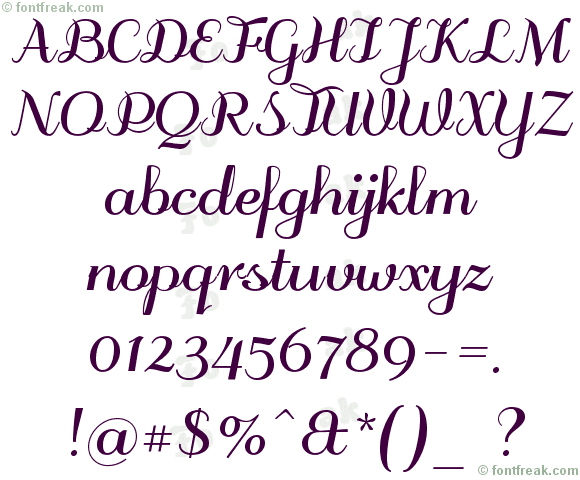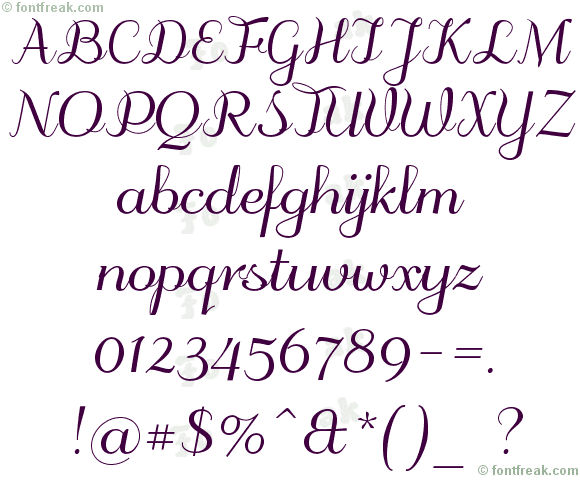
odstemplik
odstemplik Bold
The odstemplik font, created by Grzegorz L., is a decorative typeface that captures attention with its unique visual appeal. This bold, ornamental font features a distinctive stroke weight that combines both elegance and playfulness, making it ideal for various design applications. The characters exhibit a delightful blend of curves and angles, contributing to a dynamic aesthetic that draws the eye. With its moderate contrast and thoughtful spacing, odstemplik ensures readability while maintaining its artistic flair.
This font is particularly well-suited for projects that require a touch of creativity and individuality. It shines in wedding invitations, where its ornate style can convey romance and sophistication. Similarly, it makes an excellent choice for movie posters, providing a striking visual impact that can captivate audiences. Restaurant menus can also benefit from the unique charm of odstemplik, enhancing the dining experience with its decorative elements. Additionally, greeting cards and event flyers will stand out with the engaging character of this typeface.
Target audiences for the odstemplik font include graphic designers looking to elevate their projects, small business owners aiming to create memorable branding, and content creators who want to infuse personality into their work. The font's freeware license under the SIL Open License version 1 allows for flexible use, making it accessible to a wide range of users.
What truly sets the odstemplik font apart is its ability to blend artistic expression with practicality. Its striking design can transform ordinary text into eye-catching visuals, making it a valuable addition to any designer’s toolkit. For those interested, an odstemplik font free download is available, allowing users to explore its creative potential.